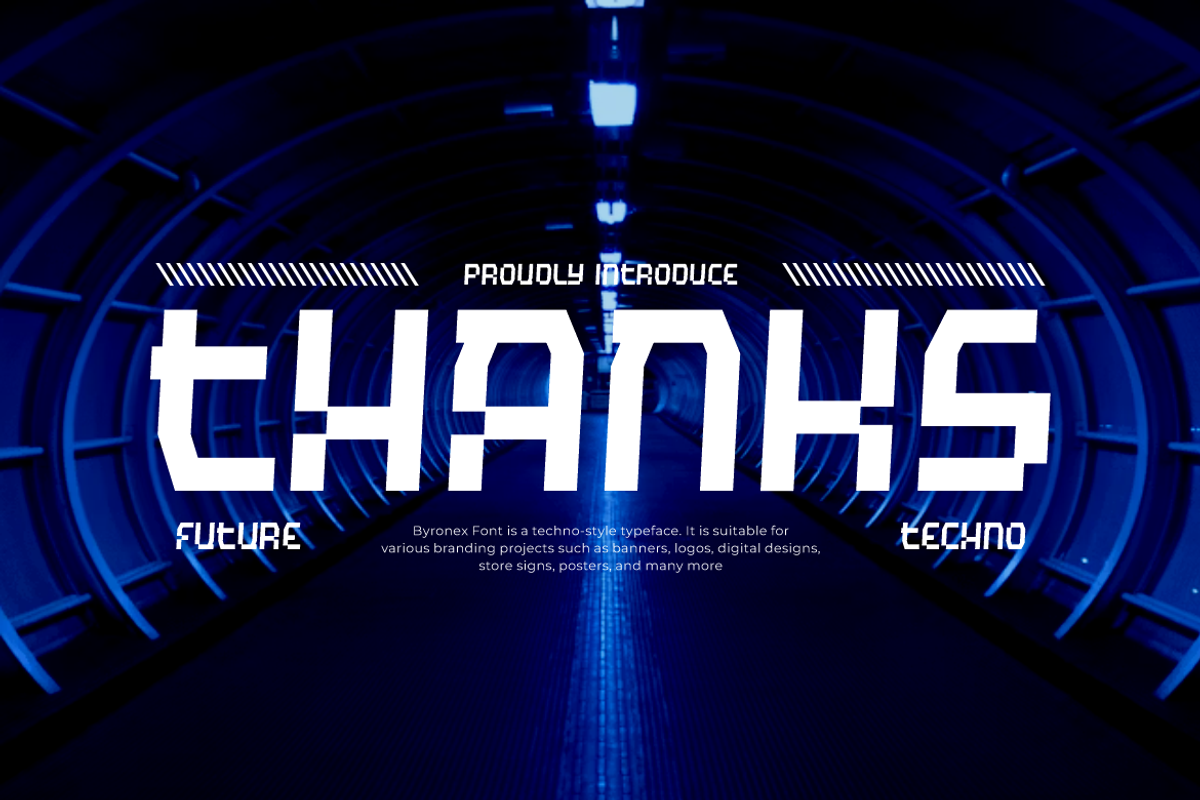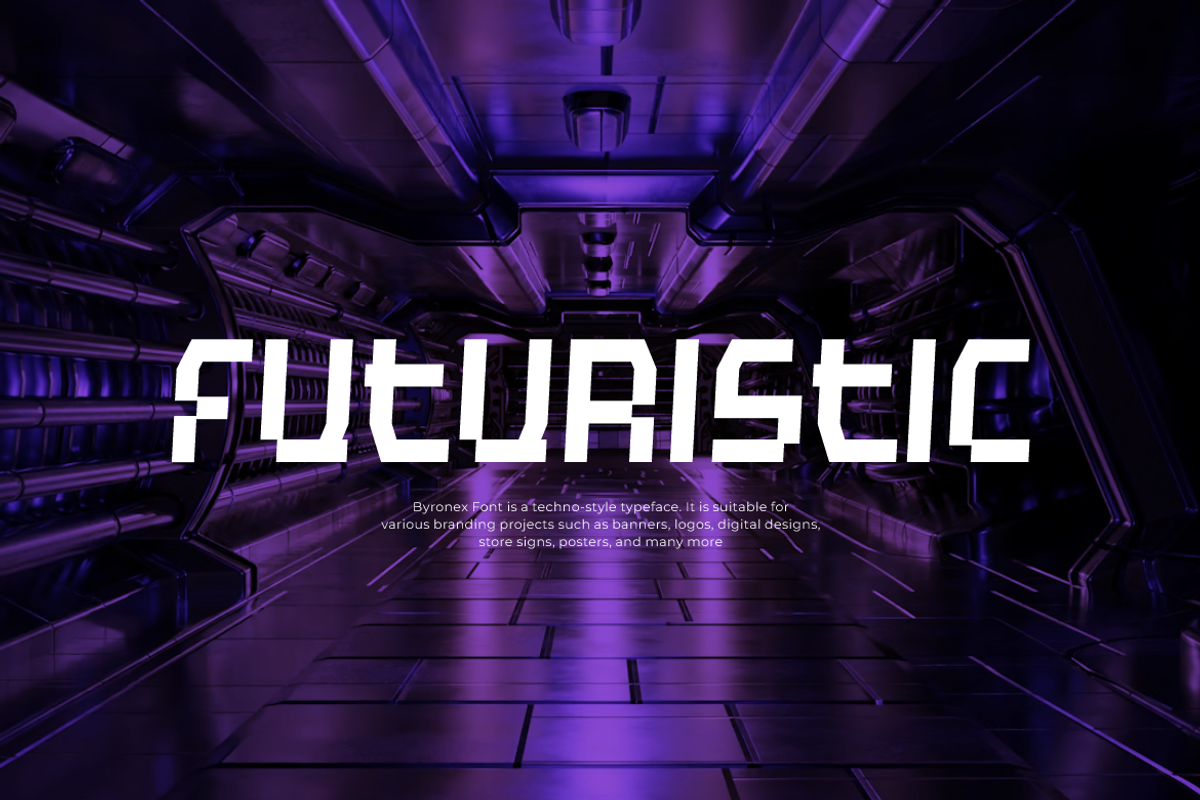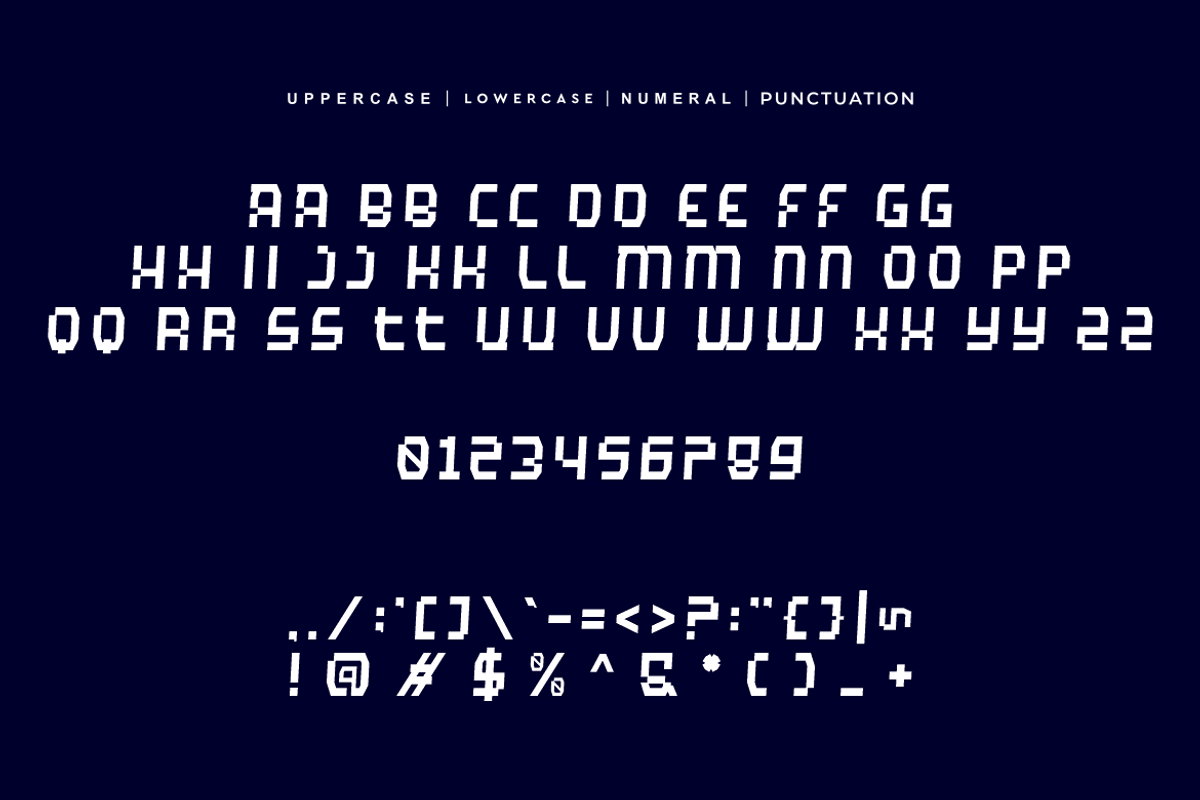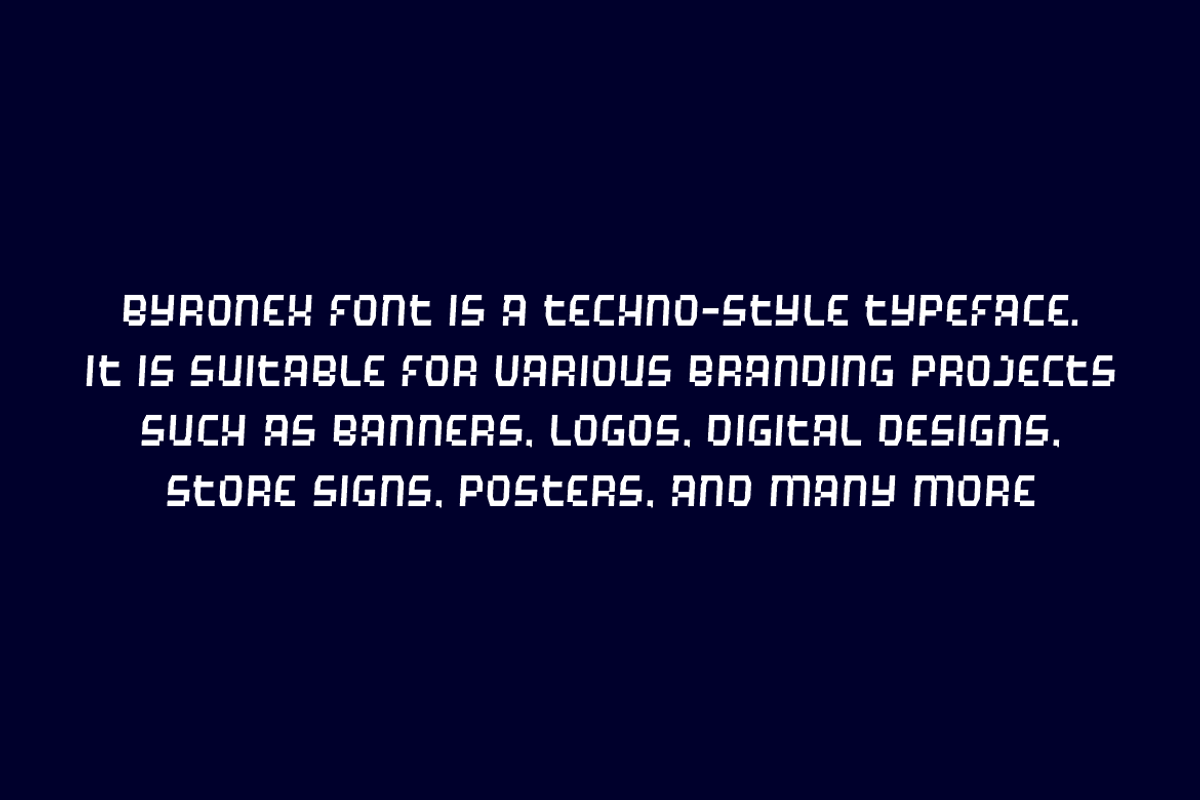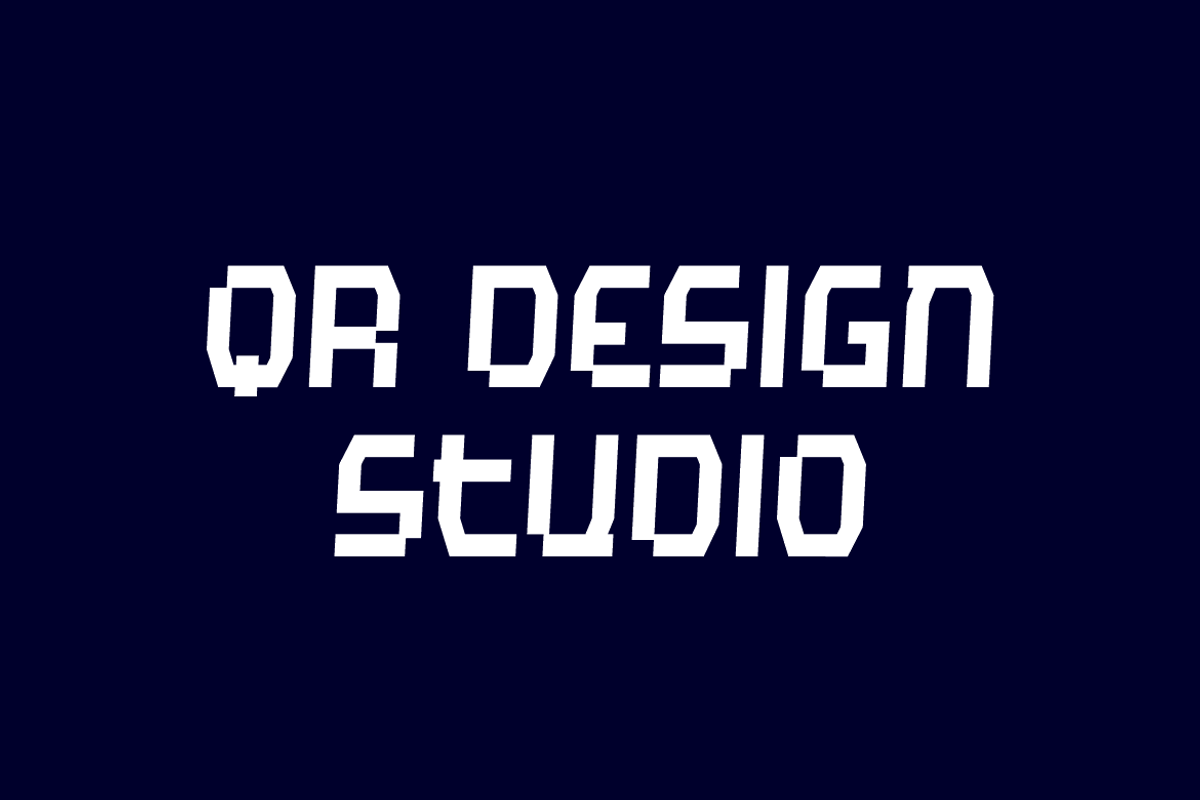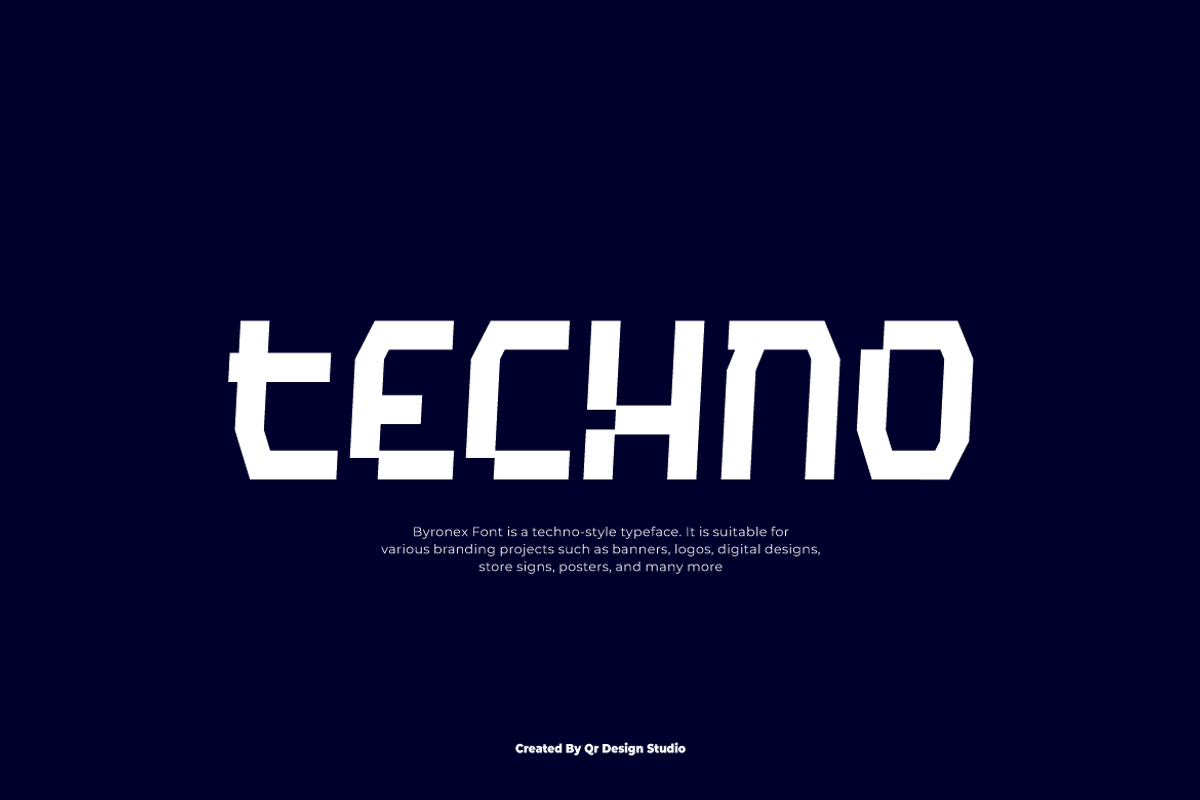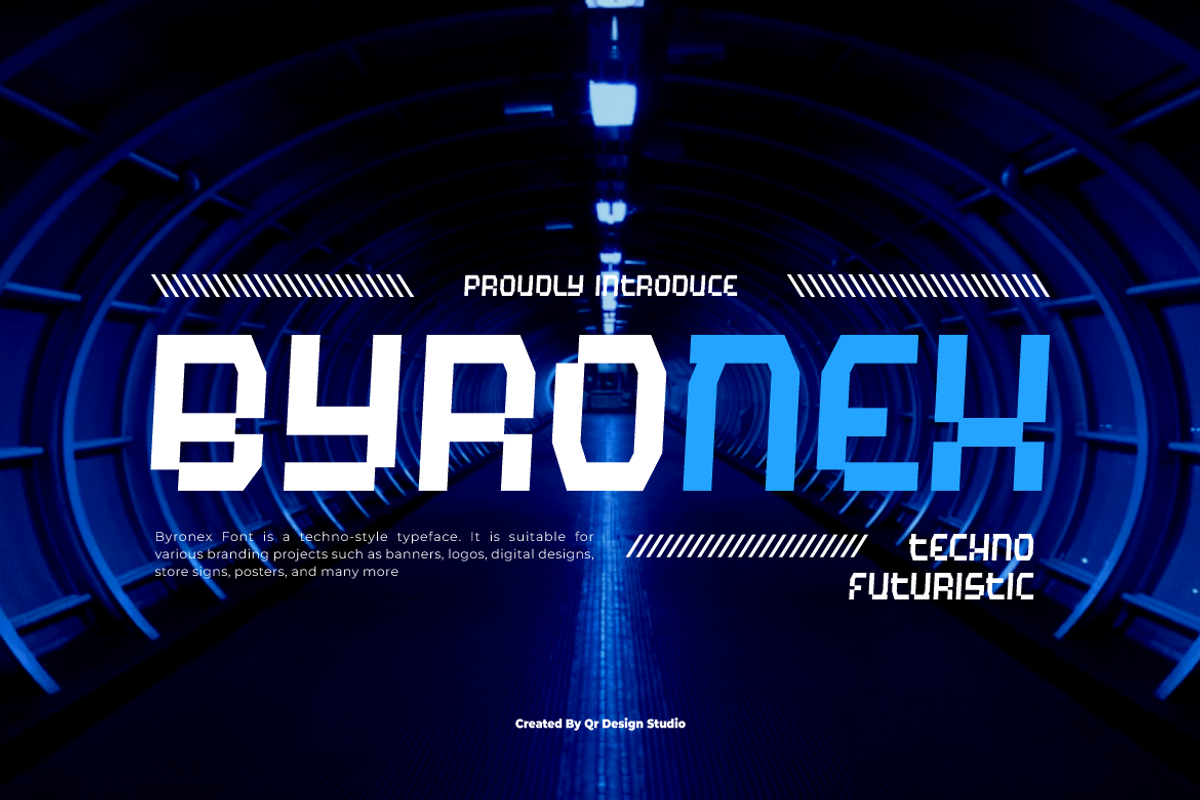
Byronex - Techno Font
Byronex Font is a bold and authentic display typeface. It’s perfect for various branding projects such as logos, digital designs, and more. This font stands out beautifully in a wide range of contexts.